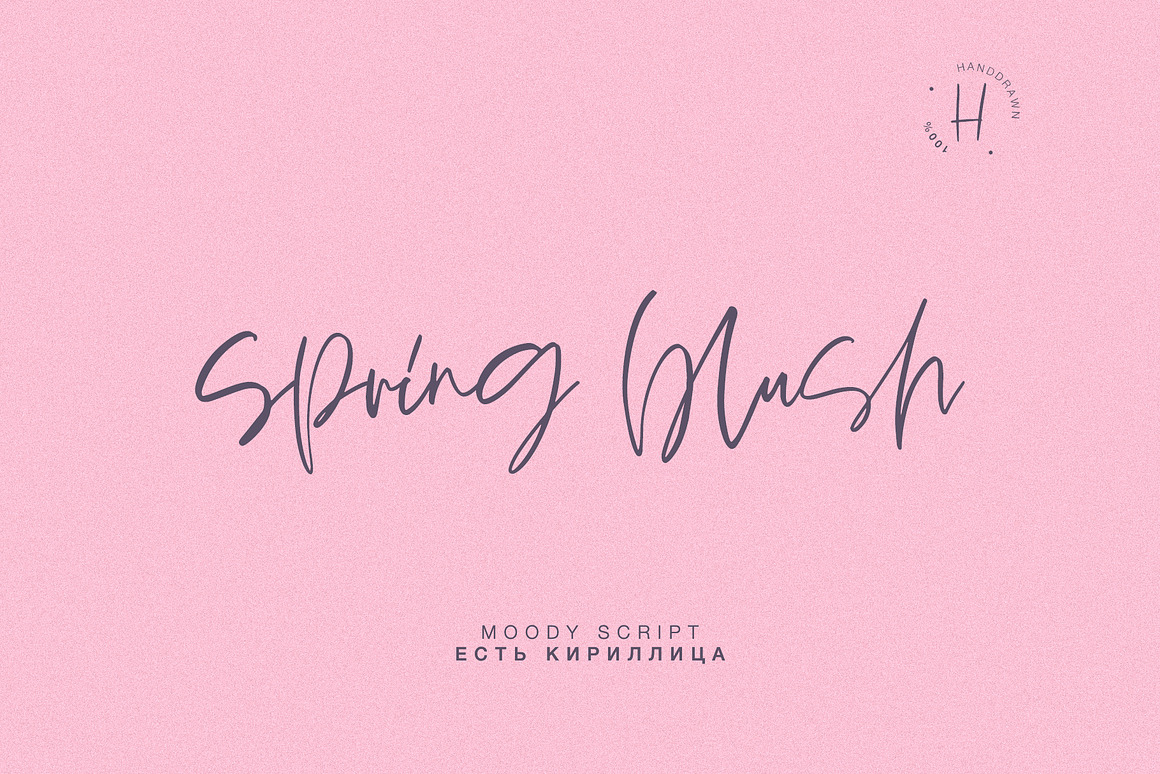
SPRING BLUSH Font
SPRING BLUSH Font is perfect for floral boutique branding, spring wedding invitations, beauty salon signage, fashion blog headers, cosmetic packaging design, garden center marketing, romantic event stationery, and feminine lifestyle campaigns.
What makes SPRING BLUSH Font exciting is its delicate romance that captures the fresh beauty and tender emotions of springtime blooms. The font features soft letterforms with gentle curves and blossoming character variations that evoke cherry blossoms, morning dew, and the warm blush of new love. Its distinctive floral-inspired styling and romantic appeal communicate freshness, femininity, and natural beauty, making every message feel kissed by spring sunshine and touched with the gentle grace of blooming flowers.
The SPRING BLUSH Font family includes regular weight with uppercase and lowercase letters, numerals, punctuation marks, and special characters. Premium versions often feature decorative alternates and floral elements that enhance the romantic, springtime aesthetic perfect for beauty and wedding applications.
This enchanting seasonal typeface brings instant freshness and romantic charm to any spring-themed project. SPRING BLUSH Font Free Download delivers exceptional results for brands targeting romantic demographics who appreciate natural beauty, seasonal celebrations, and feminine elegance.
The blooming character of SPRING BLUSH Font makes it particularly valuable for wedding planners, floral designers, and beauty industry professionals. Its excellent readability ensures romantic messaging and product information remain clear while maintaining the distinctive springtime aesthetic that appeals to customers seeking fresh, natural beauty experiences.
Wedding industry marketers appreciate how SPRING BLUSH Font effortlessly conveys romantic freshness and seasonal beauty. The font's delicate proportions and floral details create beautiful brand materials that establish emotional connections with audiences celebrating love, natural beauty, and the renewal of spring.
The versatile romance of this typeface extends to gardening services, natural skincare brands, and seasonal event planning where springtime authenticity enhances appeal. SPRING BLUSH Font Free Download provides creative professionals with an essential tool for developing memorable, nature-inspired designs that resonate with audiences who embrace seasonal beauty, romantic celebration, and the tender freshness of spring blossoms in their lifestyle and special occasion choices.